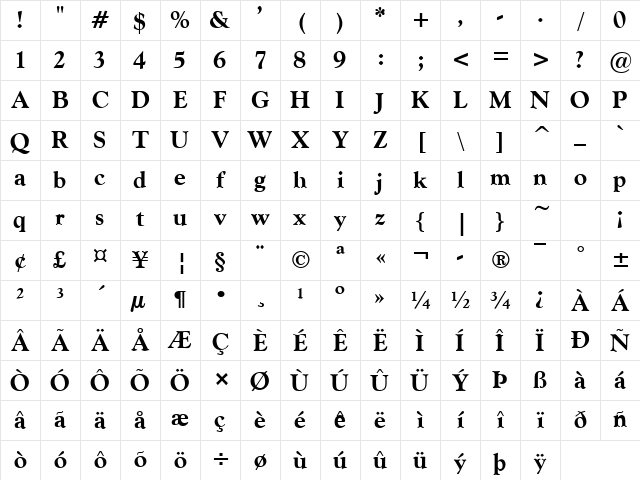
Complete Carnegie Black Black glyph index. Displaying only characters natively supported by Carnegie Black Black font.
Carnegie Black is a composed and adaptable typeface that performs quietly and consistently across a wide range of design contexts.